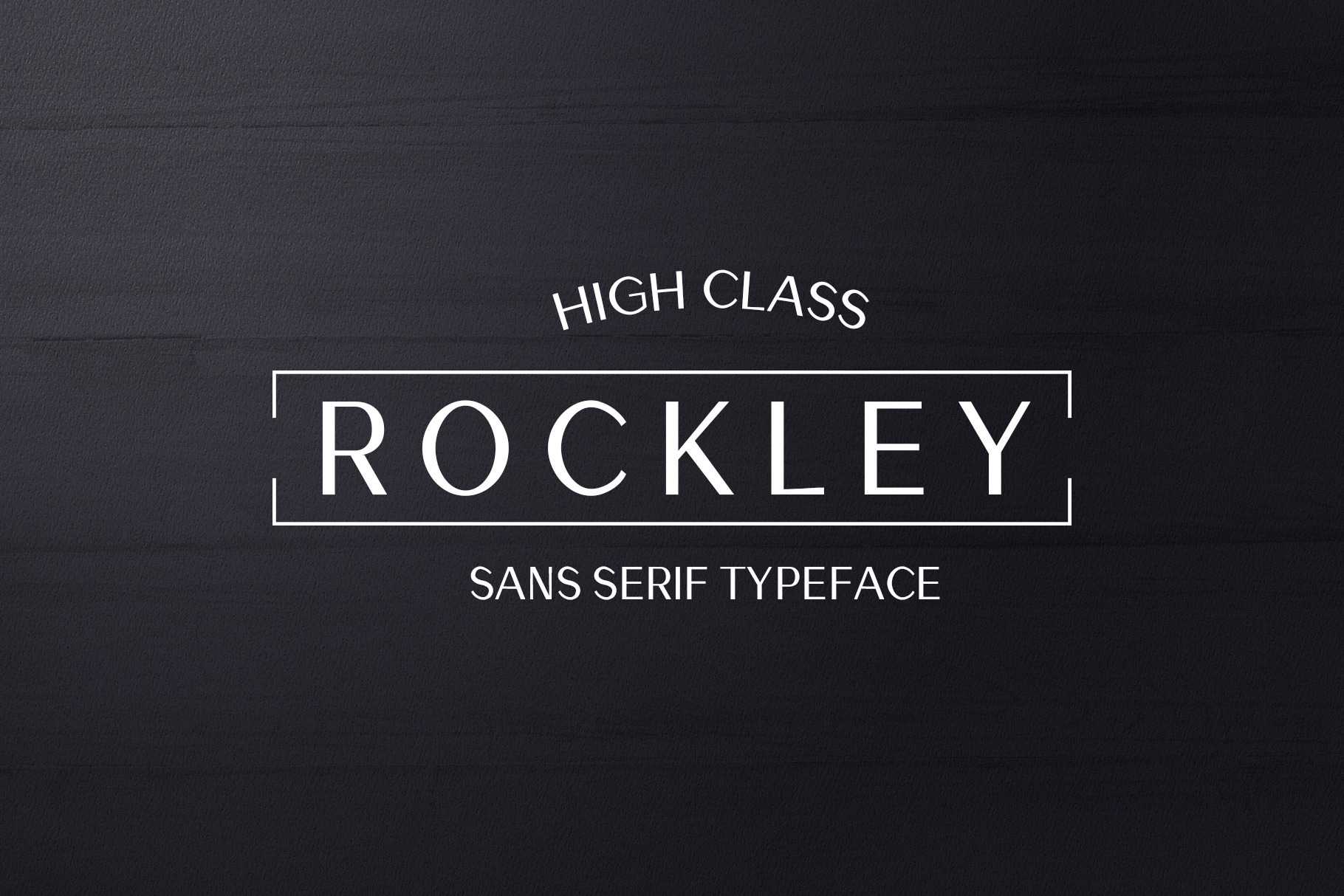
Rockley Sans Serif 10 Font Family
Rockley Sans Serif Font Family is a set contains 10 weights. It is good for making creative templates and stationary. Rockley typeface suits best for modern / clean designs, logos, headlines, banners and templates etc.
It looks gorgeous in all caps with a wide-set spacing if you want to try a classy look, or beautiful on its own in capital and lowercase letters for something completely timeless.
- Updates: Added Italic Weight
- Regular, Light, Italic, Outline, Bold and Black Weights
Rockley Font Features:
- Uppercase Letters
- Lowercase Letters
- Non English Characters ( Latin Supplement + Latin Extended A)
- Rockley is a highly versatile Font Family Pack.
- Includes 5 weights
- The perfect choice for Modern, Fashion & Magazine Titles.
- Great for use on quotes, short phrases, magazines, logotypes and all sorts of advertising.